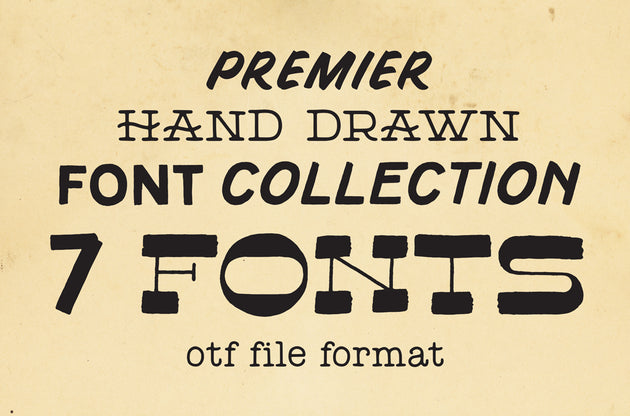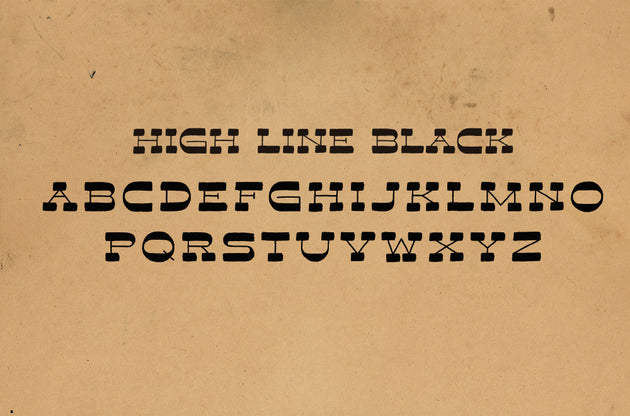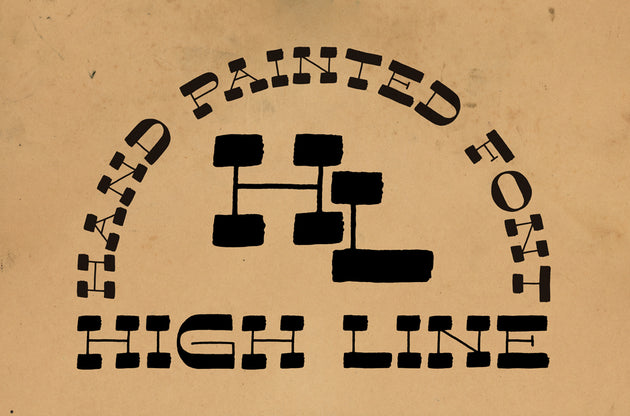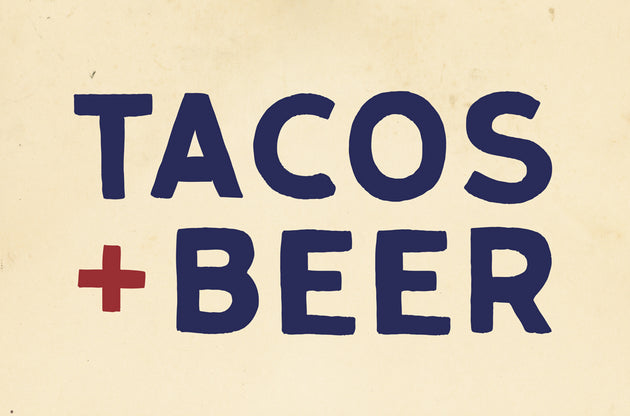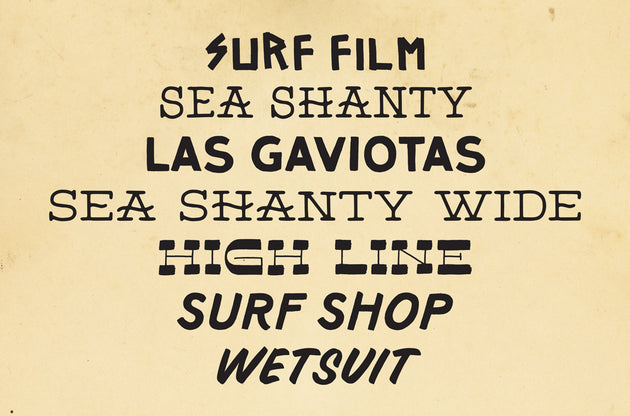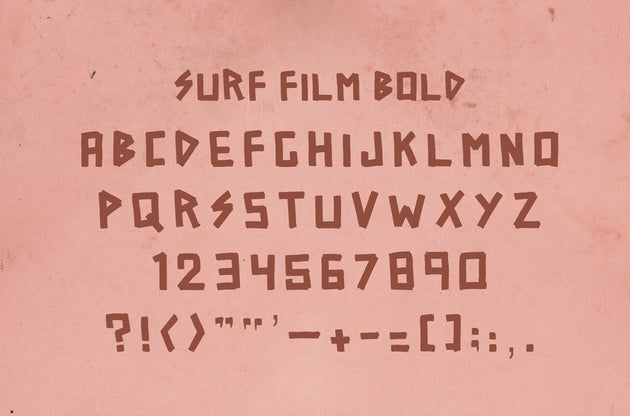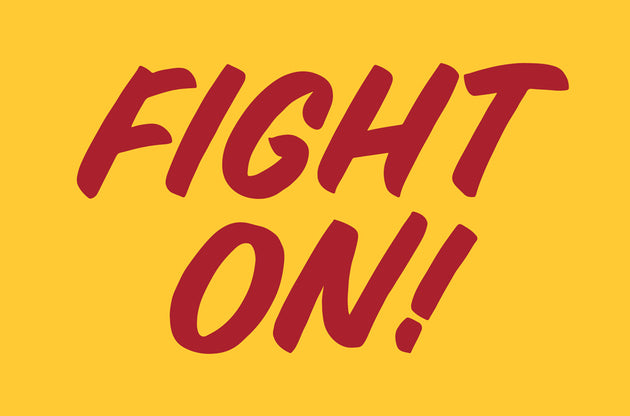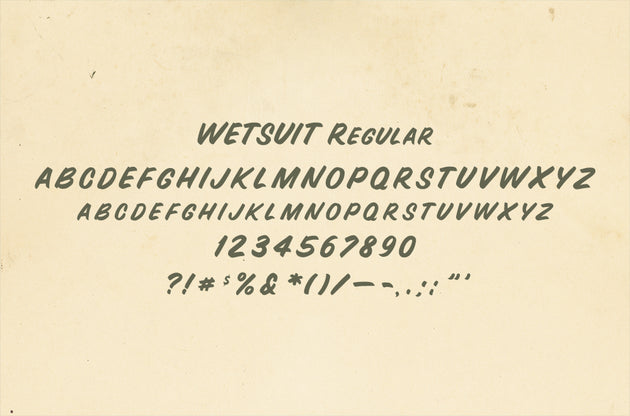
These fonts look hand drawn because... they are hand drawn... outside of a computer.
Included in this collection are the first 7 hand drawn fonts released by Matthew Allen. The fonts in this collection are the OTF fonts, vector based, and infinitely scalable.
These fonts possess the nuance of a hand lettered fonts, while working just like any other font in your font library.
Fonts in this collection are:
Las Gaviotas
Surf Shop Regular
Wetsuit Regular
Surf Film Bold
High Line Black
Sea Shanty
Sea Shanty Wide